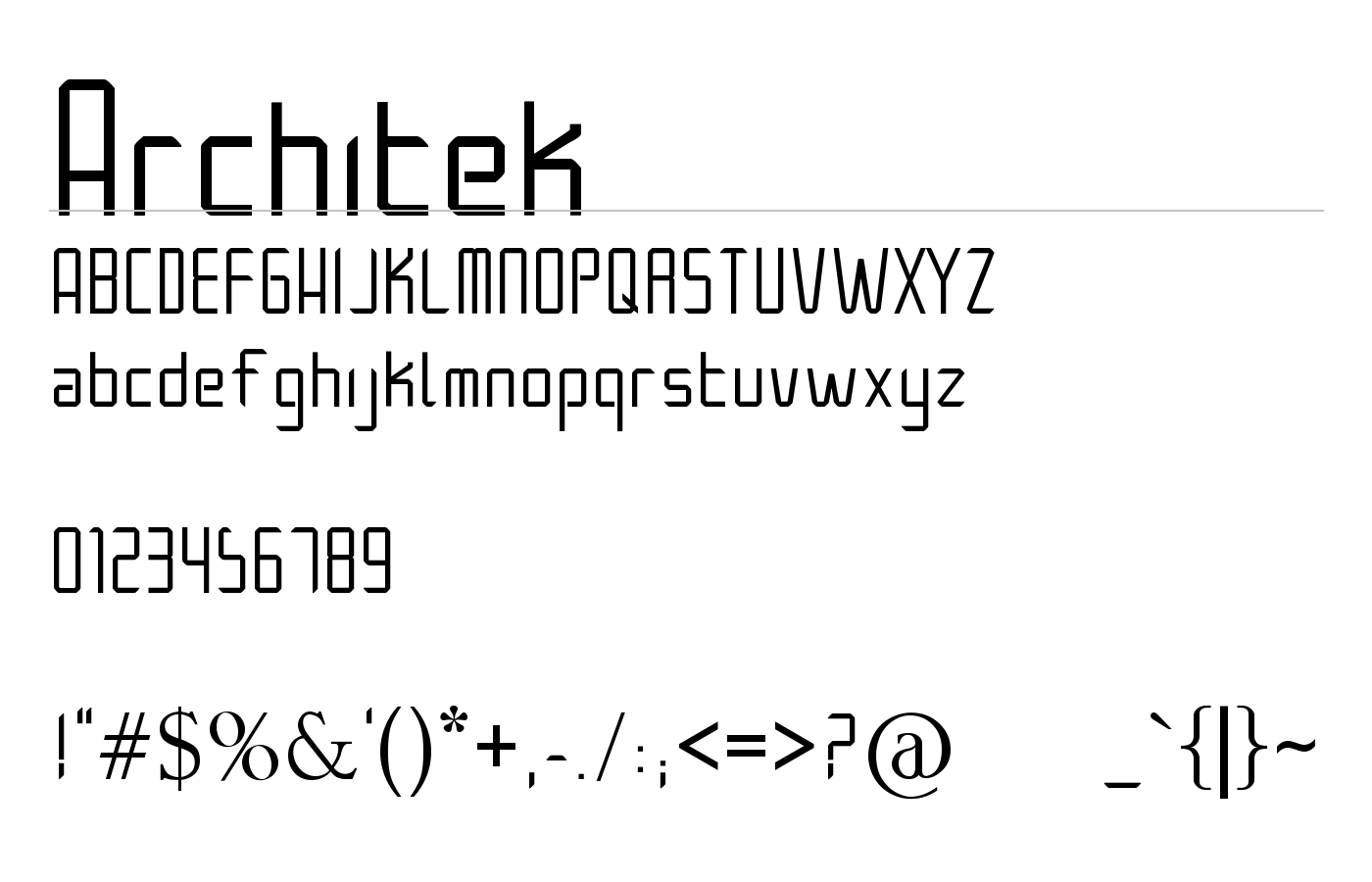
Architek is a modern, condensed sans serif font with a clean, geometric structure and a technical, almost architectural feel. Its narrow letterforms, uniform stroke weight, and sharp edges make it ideal for contemporary design projects where a precise, futuristic look is desired, such as tech branding, headlines, and editorial layouts. This font works well in contexts that call for clarity and a sleek, innovative aesthetic.
Architek Font
About Architek Font
| Font family | Architek Font |